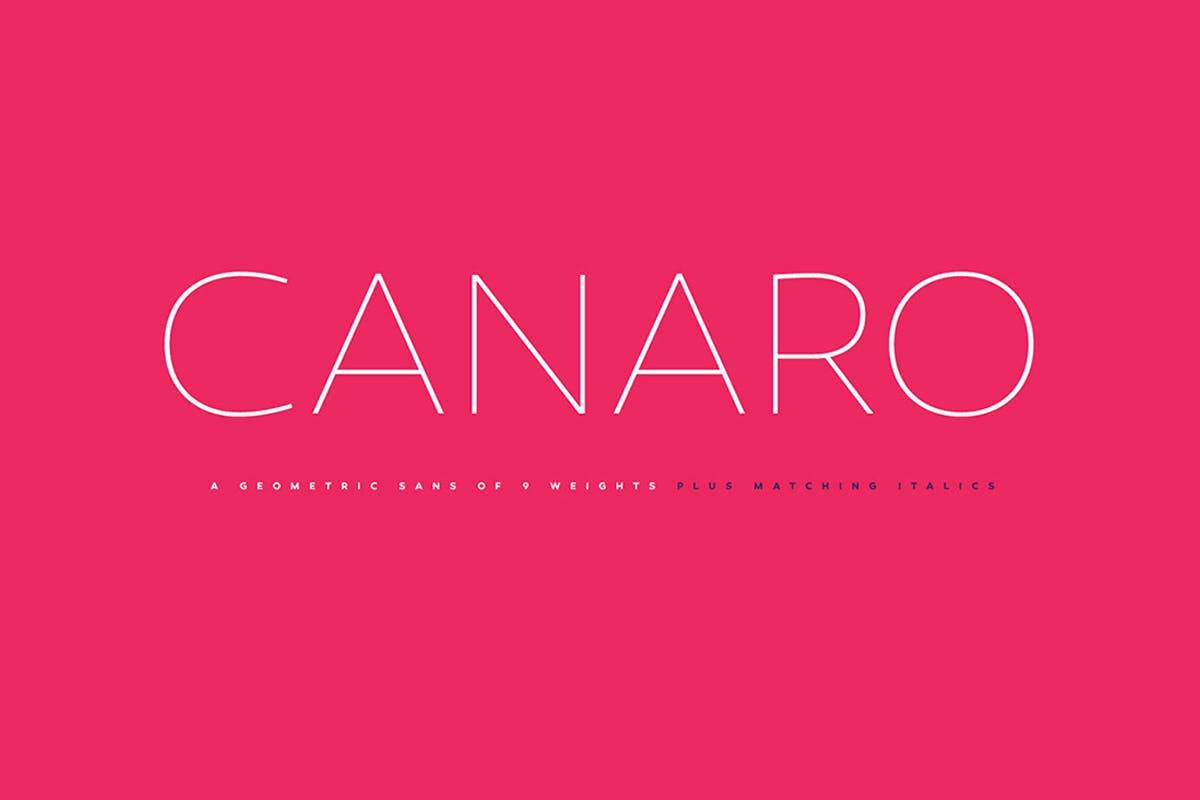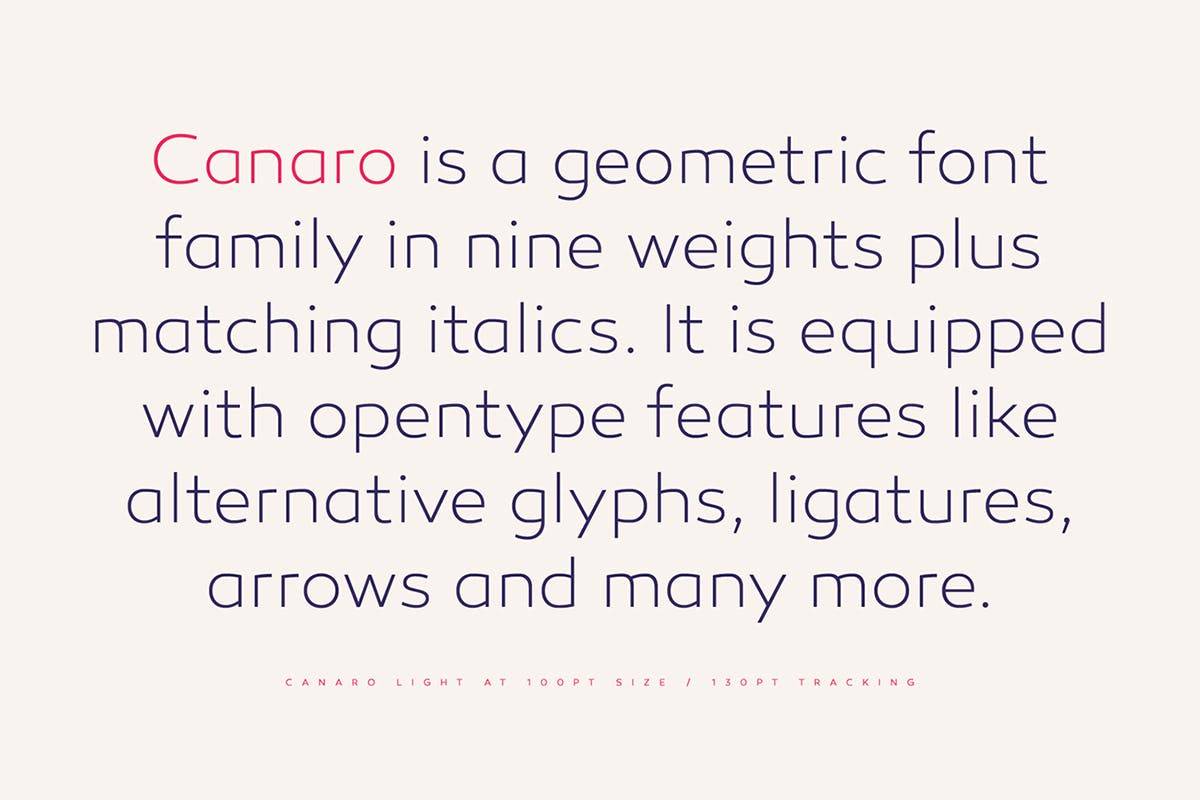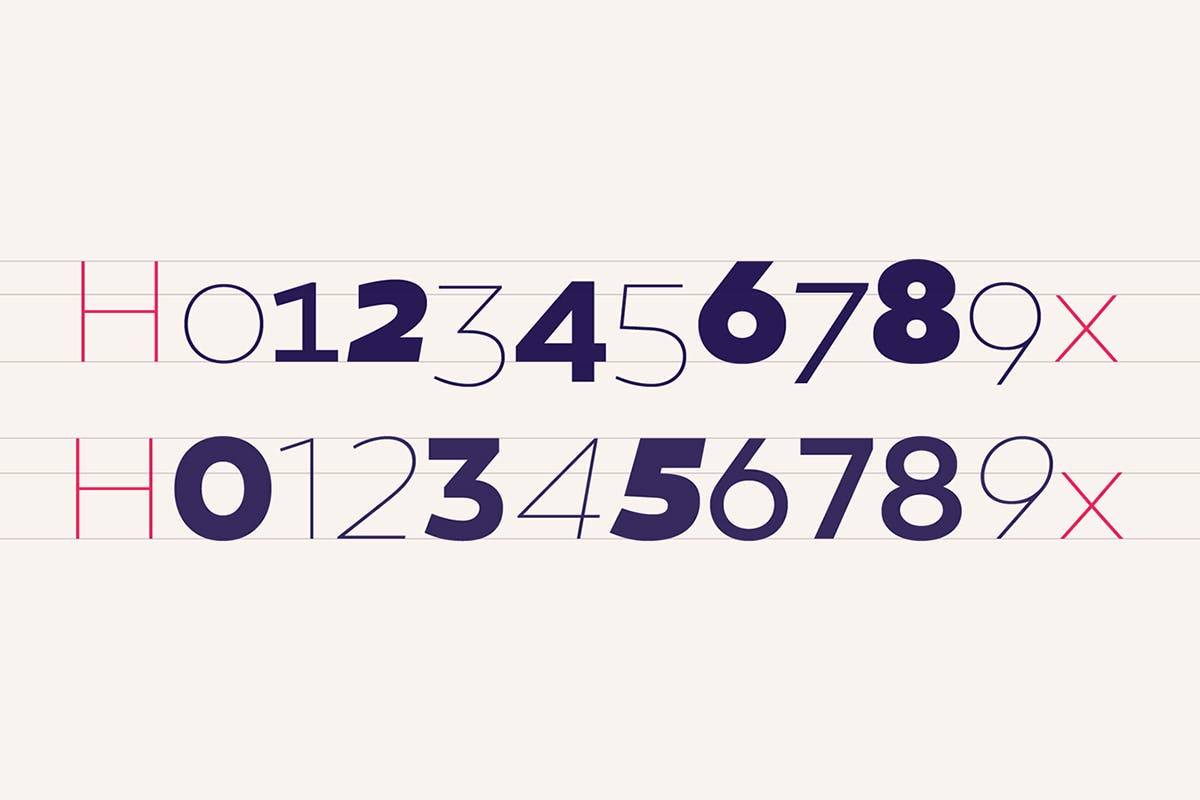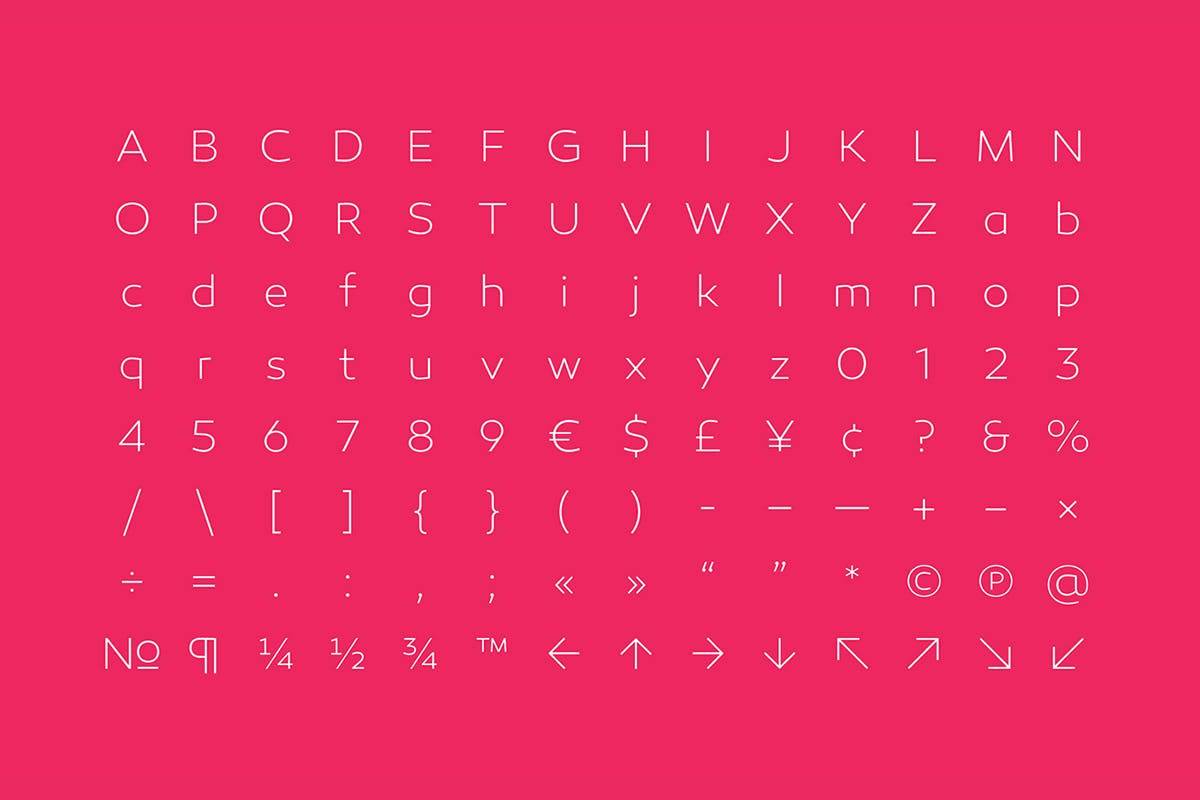
Canaro Demo is a clean, modern sans serif font with a light weight and a slightly wide, open feel that makes it highly readable. Its geometric shapes combined with subtle humanist touches give it a friendly yet professional look, ideal for contemporary branding, editorial design, and clear digital interfaces. This versatile font works well for both headlines and body text where clarity and a modern aesthetic are desired.
Canaro Demo Font
About Canaro Demo Font
| Font family | Canaro Demo Font |
| Designer | René Bieder |